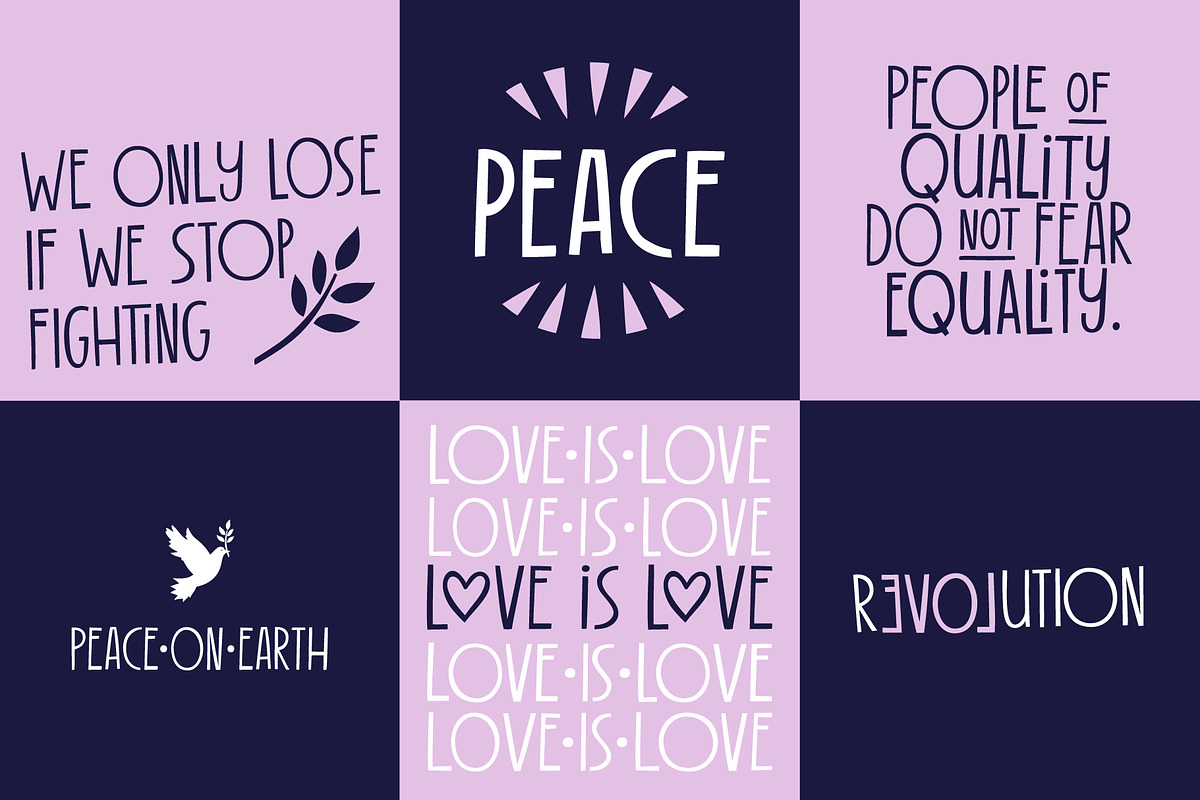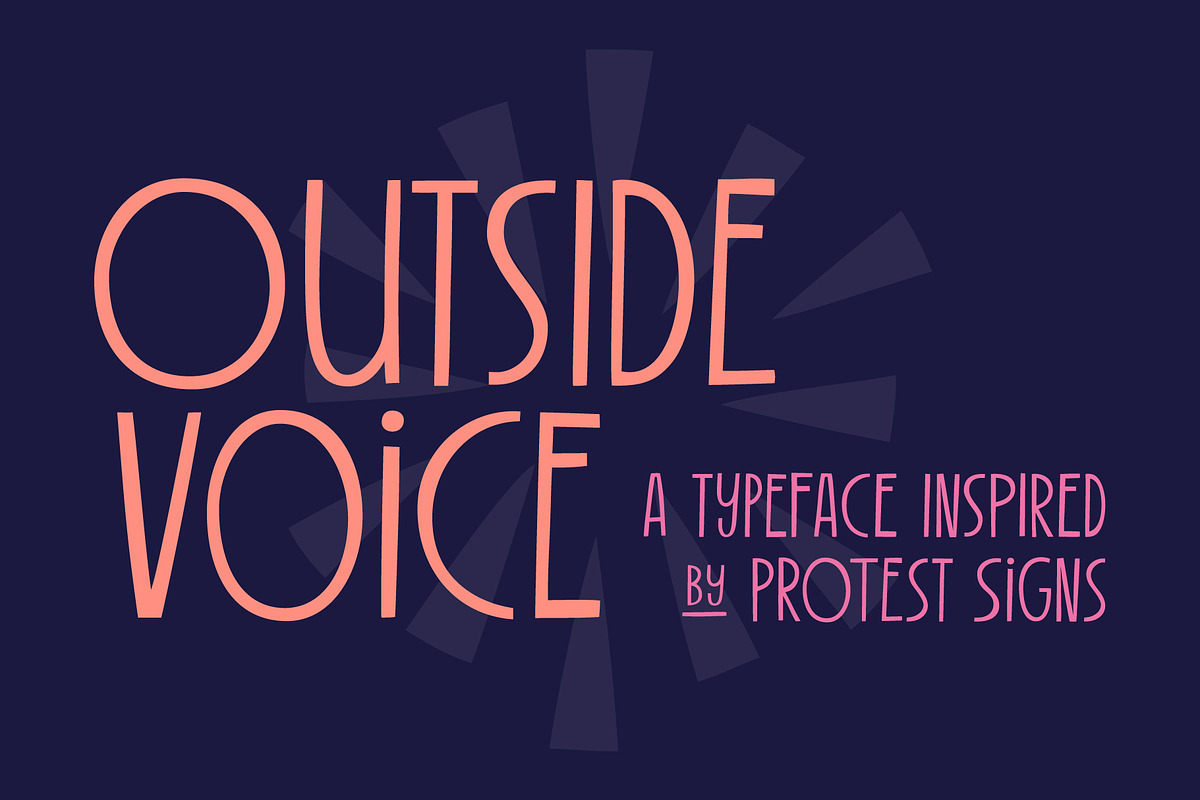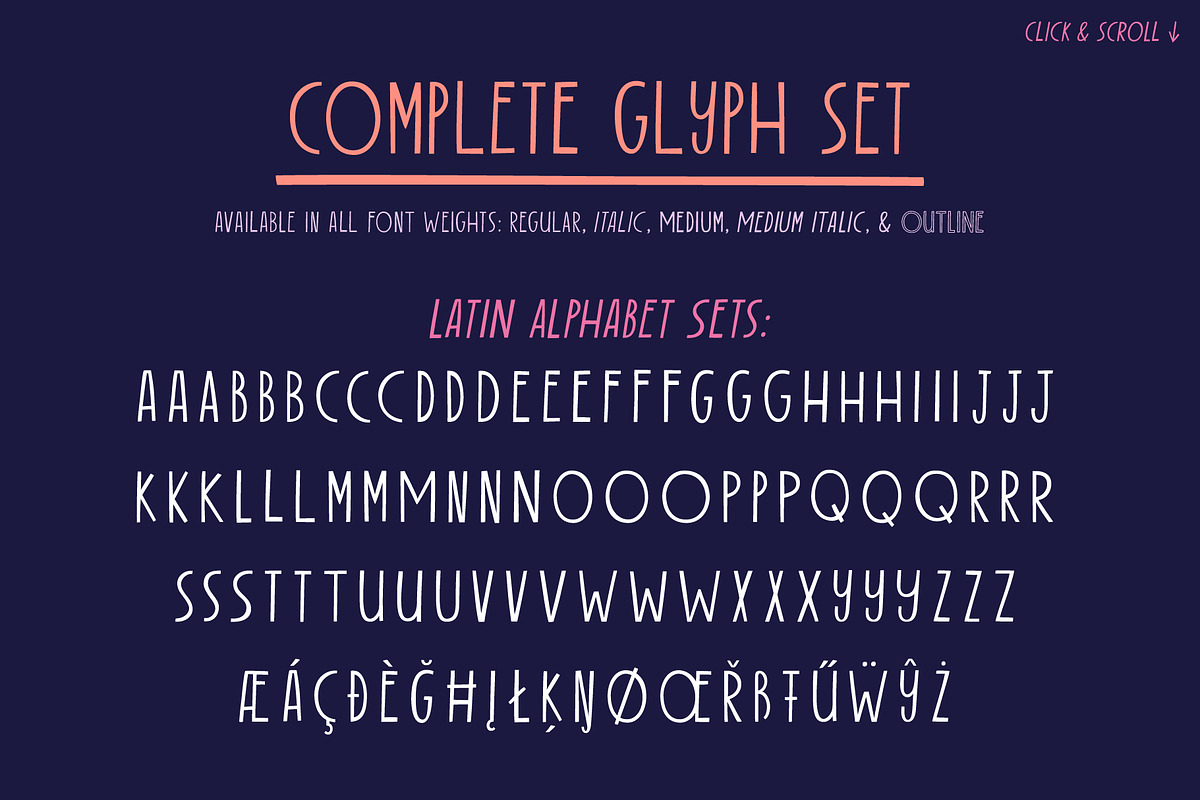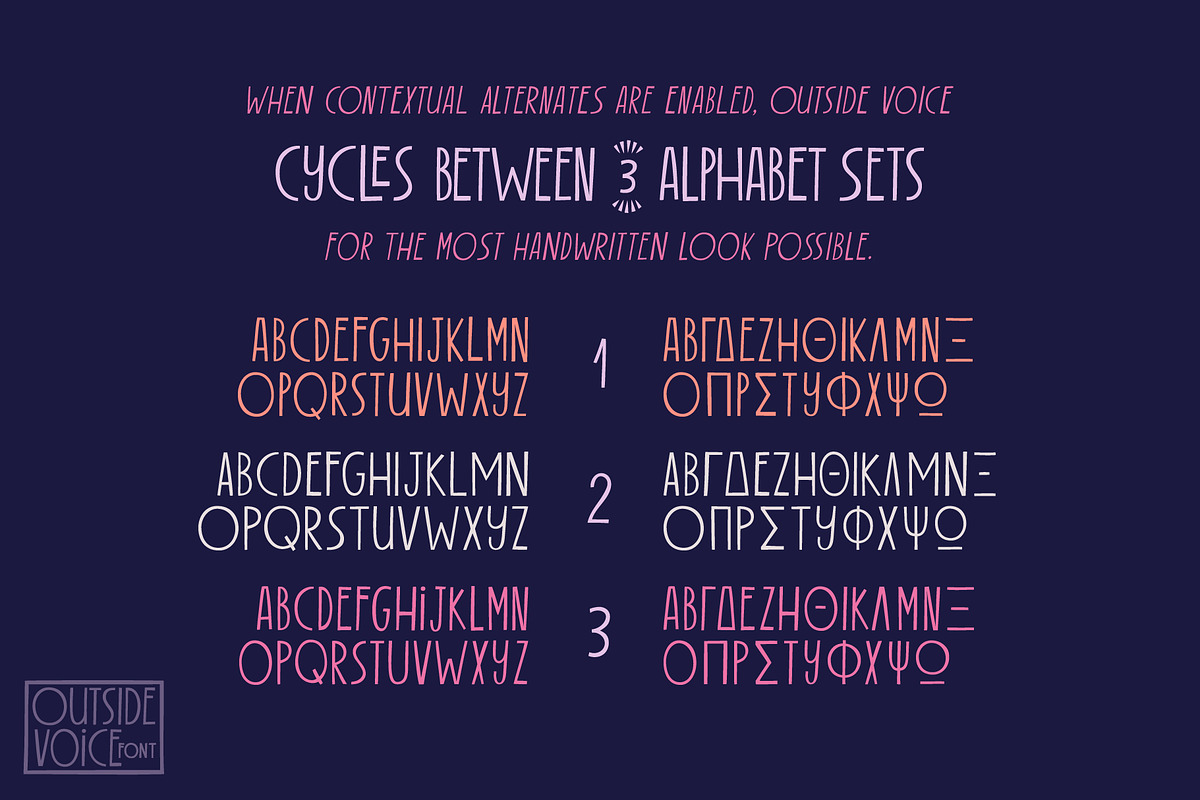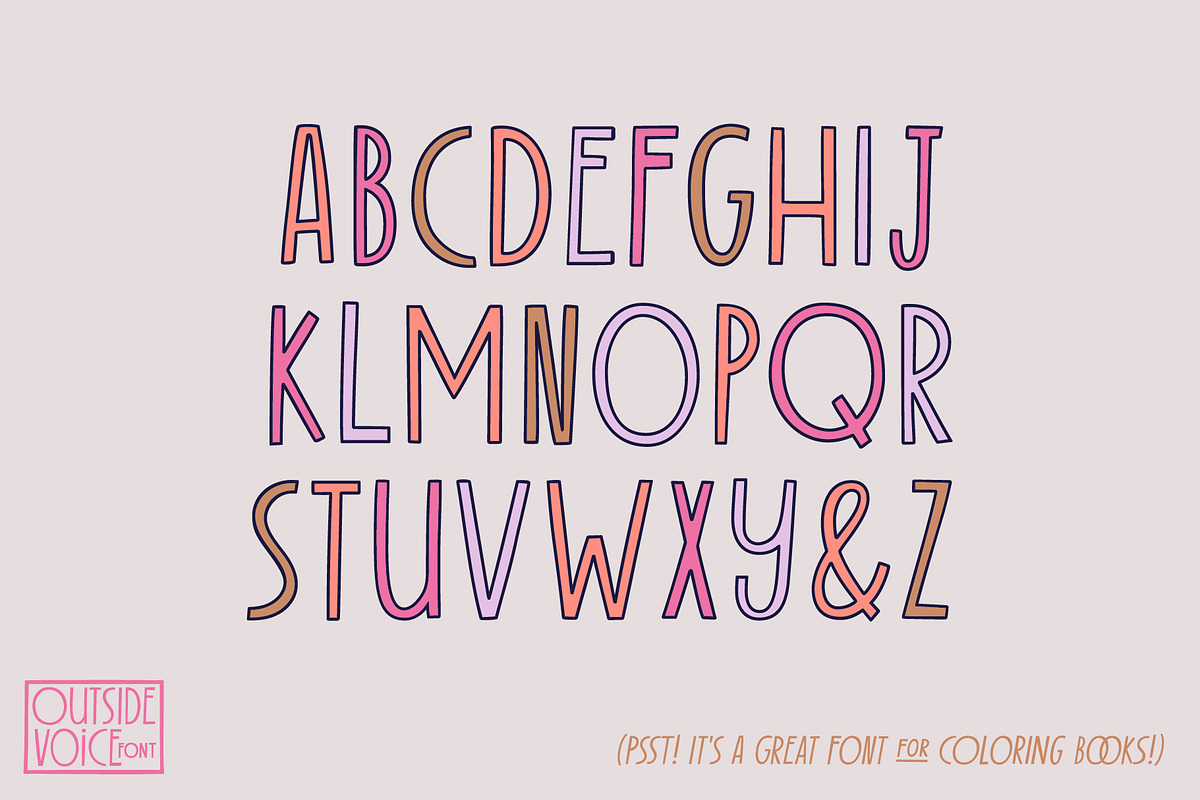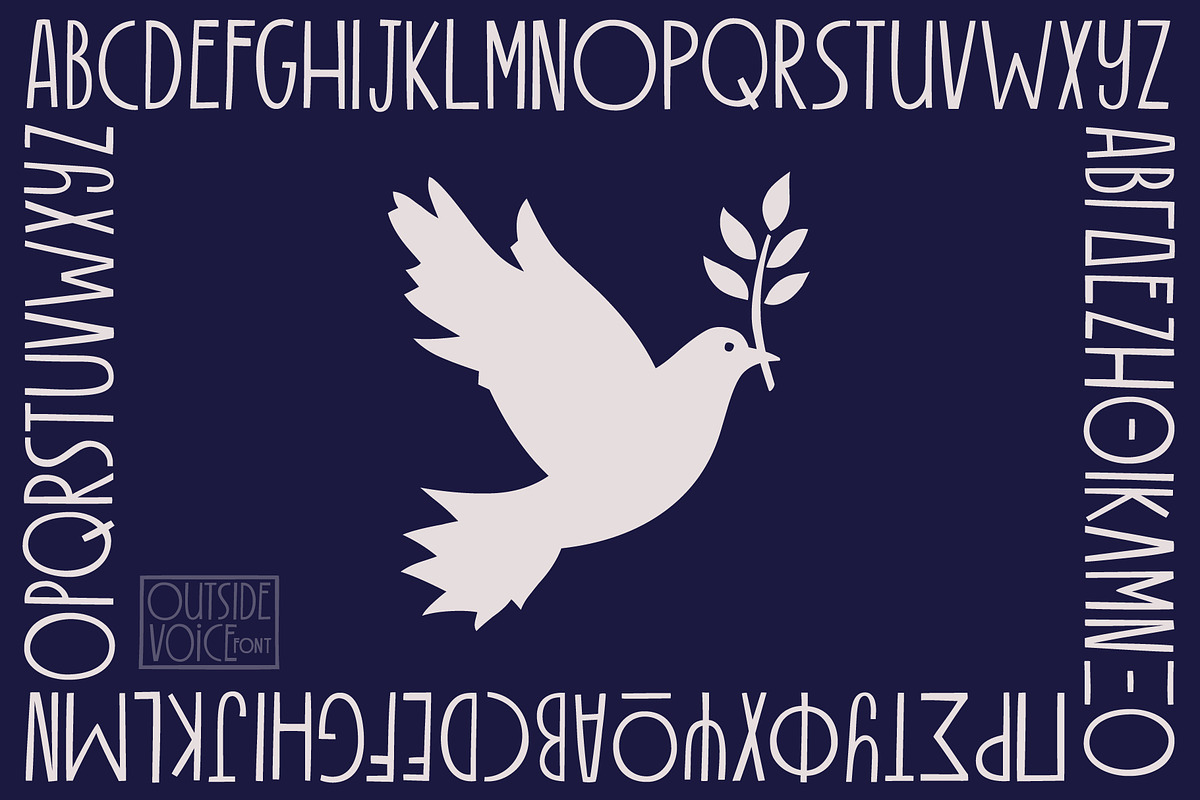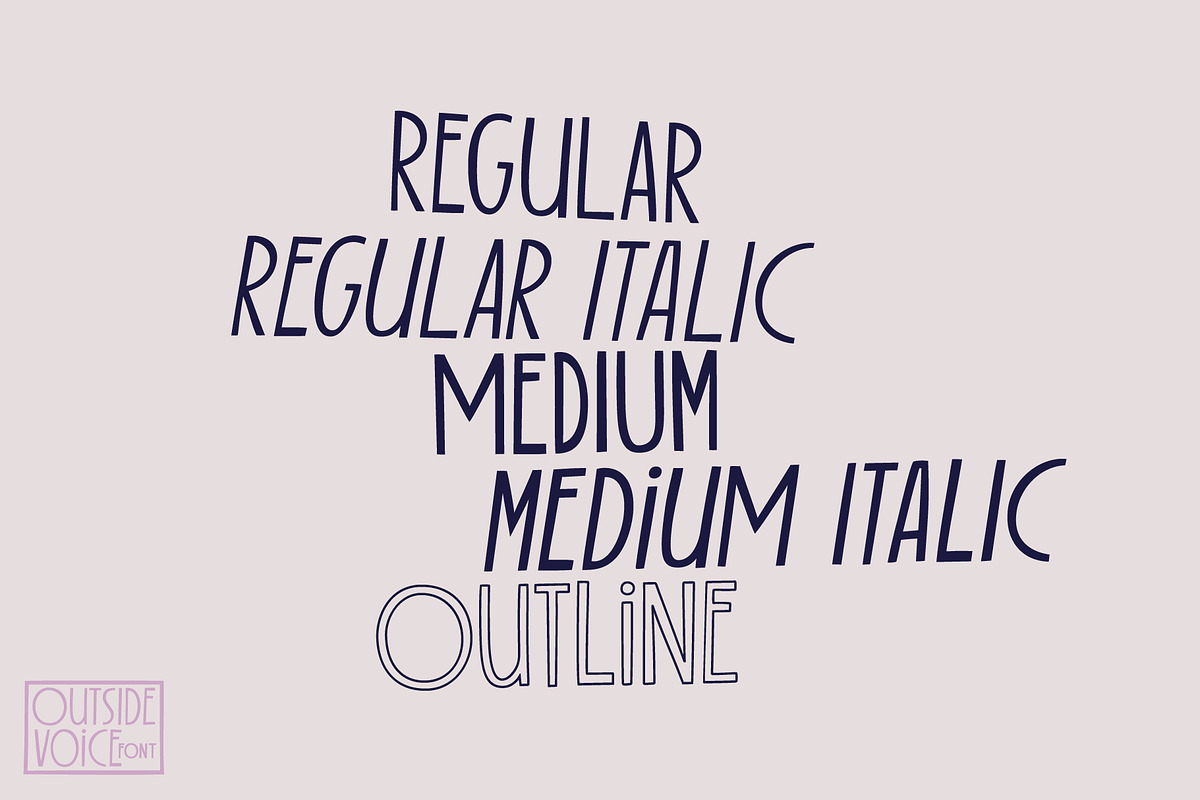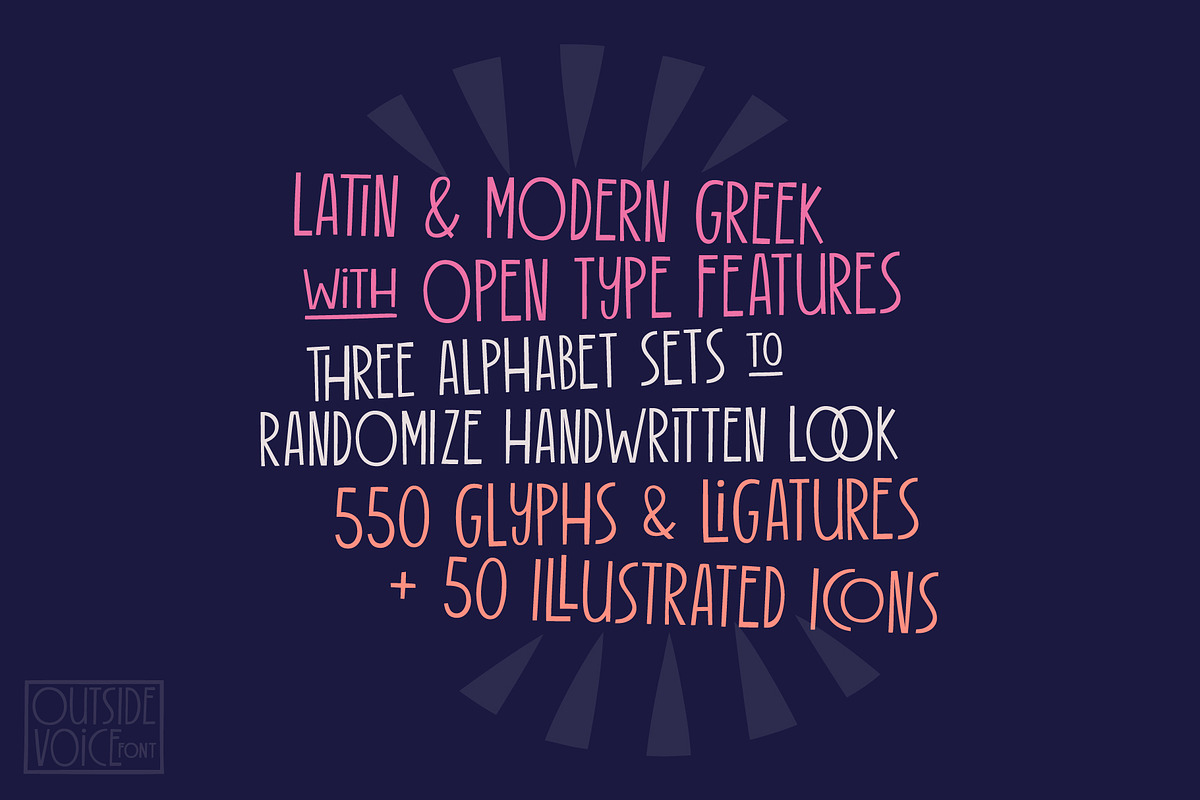
Outside Voice Handwritten Font
Outside Voice is a handwritten, all-caps typeface, created as an homage to the robust history of handwritten protest signs. It's a beautiful display font for a huge range of projects, from poster art to holiday cards.
With contextual alternates enabled, this font will automatically cycle through three sets of handwritten alphabets as you type! The result is type that looks as imperfect and handmade as a digital font can get. This makes Outside Voice a wonderful choice for pairing with hand-drawn illustrations. Consider varying the size, slant, and/or color of each line in your layouts. These adjustments make Outside Voice look even more handmade and organic, which is great for fun designs like posters and quotes.
This typeface is quirky and ligature-rich, with over 600 glyphs and icons. It supports Latin and Modern Greek alphabets, and includes all European language diacritical markings. The family consists of four fonts: regular, regular italic, medium, medium italic, and outline.
It includes a set of decorated word ligatures comprised of common protest words like 'peace,' 'vote', and 'yes!'. You'll also get the separate ornament components so you can create all the decorated words you want! Additionally, you'll get a full set of common protest icons, such as a raised fist, planet, dove, and peace sign.
Outside Voice is comprised of:
3 sets of the complete, all-caps Latin alphabet (with all accent marks),
3 sets of the complete, all-caps Modern Greek alphabet (with all accent marks),
a set of popular protest iconography,
a set of decorated words and ligatures,
numerals, fractions, and decorated numbers,
extensive punctuation and diacritical markings.